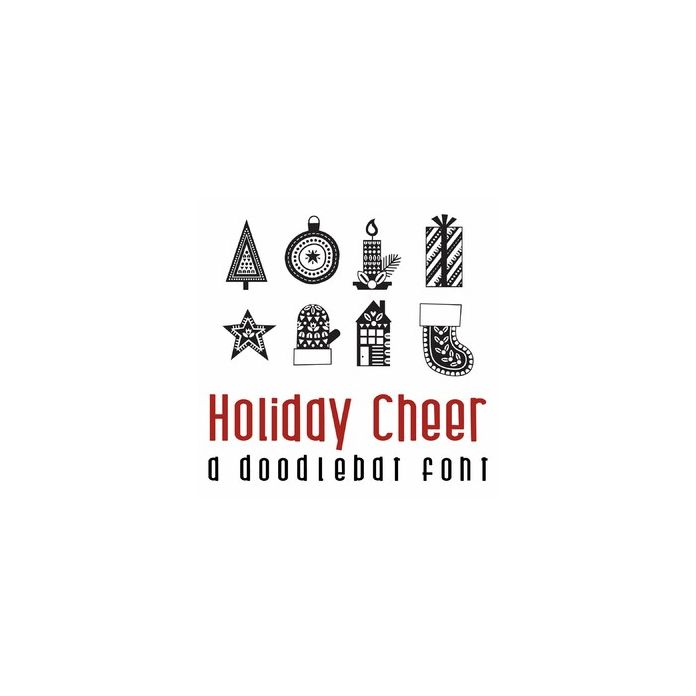
This fun doodlebat has 26 fun design filled images perfect for Christmas. Use this doodlebat for cards, crafts, gifts, decor, scrap book pages, planner stickers and more!